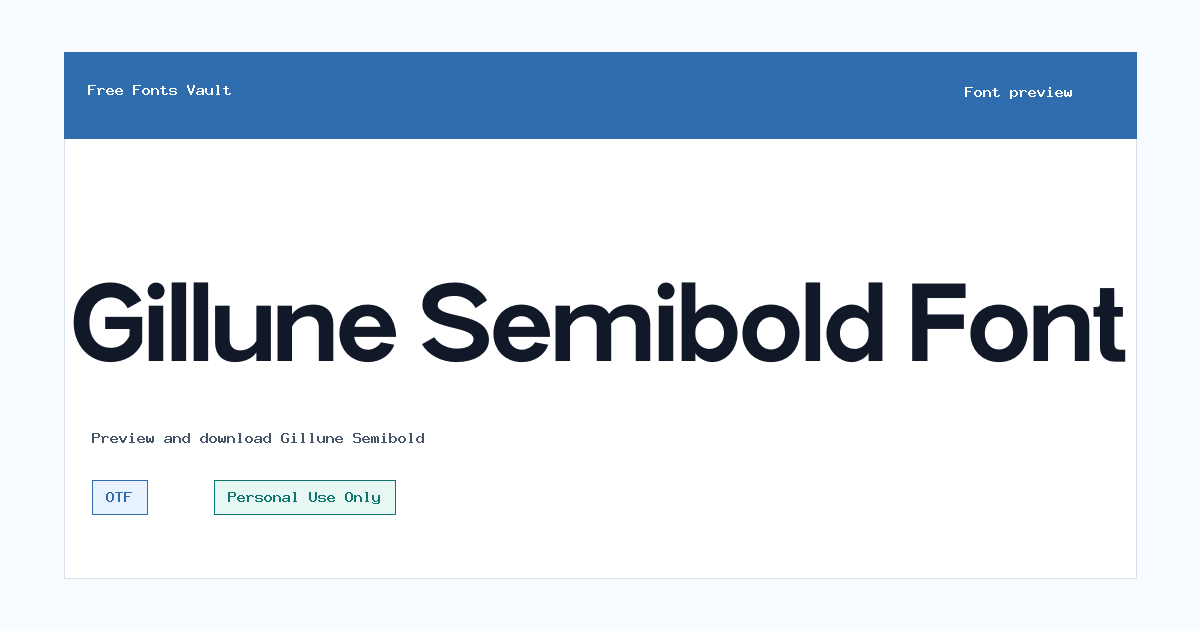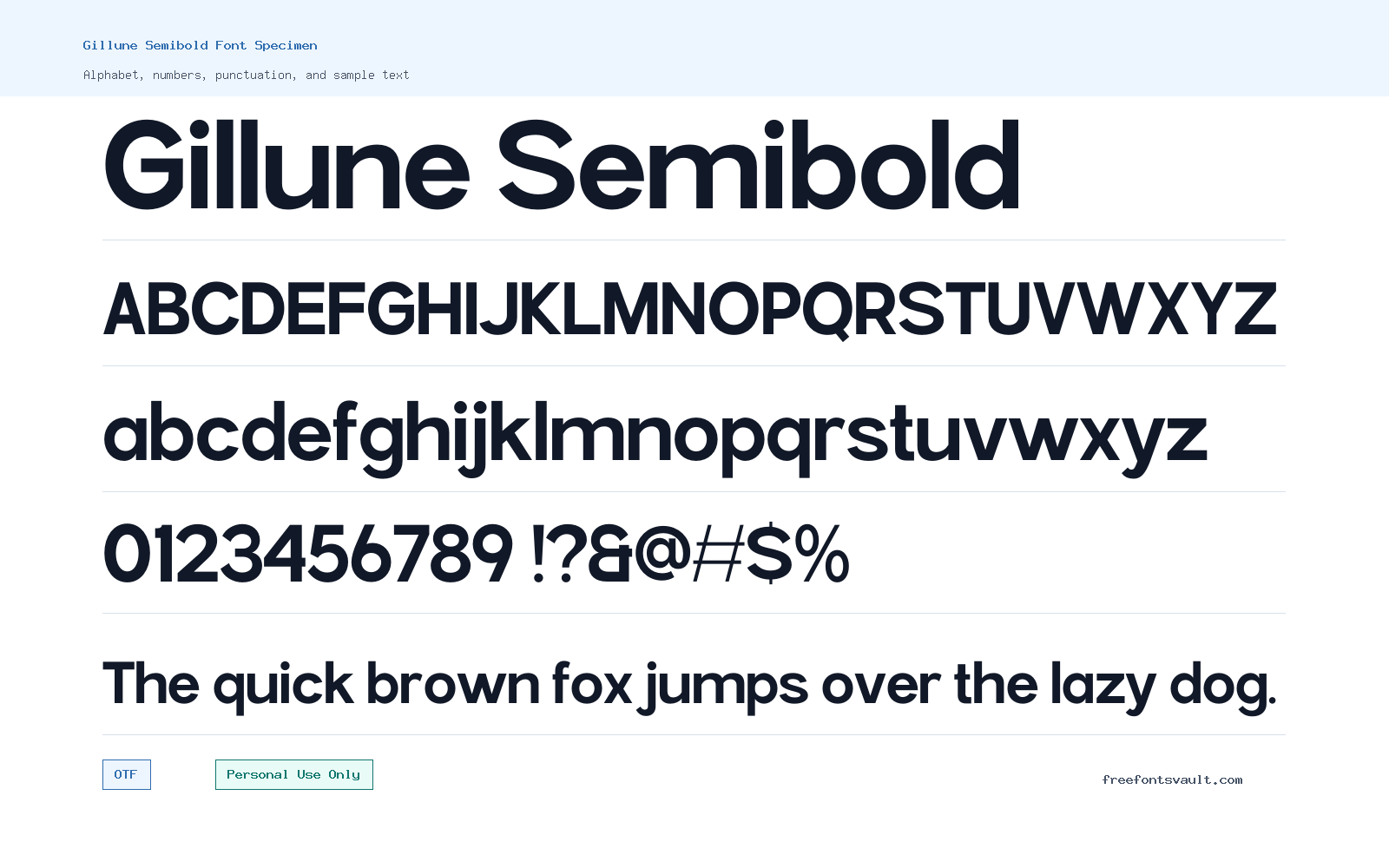
Gillune Semibold
- Designer Casloop Team
- Foundry Casloop Studio
Gillune Semibold is a strong sans serif font family style with both upright and italic OTF files, made for designs that need a confident headline weight without becoming too heavy.
Gillune Semibold has the practical feel of a display-ready sans serif: clean enough for modern layouts, but bold enough to stand out in short text. The 700 weight gives titles, labels, and callouts a firm visual presence, while the italic style adds a useful companion for emphasis, subtitles, pull quotes, or alternate logo directions. Because the family name is Gillune Semibold, visitors should treat this download as a heavier style rather than a full multi-weight type system. It is best tested in short phrases first, especially if the design depends on tight spacing, all-caps text, or small interface labels.
For designers, Gillune Semibold can work well in poster headings, social graphics, branding mockups, presentation covers, web hero text, and simple logo explorations. Try it in a few different preview sizes before choosing it for a final layout. At large sizes, check how the curves, counters, and letter spacing feel in your own wording. At smaller sizes, test real words rather than placeholder text, because semibold display styles can look different once letters repeat or sit close together. If you use the italic file, keep it purposeful: it can give motion or contrast, but using too much italic text can reduce readability in longer blocks.
- Semibold 700 weight for strong headings, titles, and short display text.
- Sans serif family style suited to clean modern layouts.
- Italic companion style for emphasis, alternate lockups, and visual contrast.
- Better suited to short text and display use than long reading passages.
- Logo concepts and wordmark mockups
- Website hero headings and landing-page mockups
- Social media banners and quote cards
- Presentation covers and bold section headers
- Packaging or label concepts for personal projects
- Short editorial headlines and feature graphics
Start by testing Gillune Semibold in the preview tool with the exact words you plan to use. For logo work, try uppercase, title case, and a short lowercase version to compare rhythm and spacing. In posters and web mockups, pair the semibold style with a quieter text face for paragraphs so the headline remains the focal point. Avoid setting long body copy in this weight, especially in italic, because heavier sans serif styles can become tiring in dense reading. If you need a full brand system, check whether matching lighter weights or additional styles are licensed from the original source before building a full identity around it.
Does Gillune Semibold include an italic style?
Yes. Gillune Semibold includes an upright OTF file and an italic OTF file.
What weight is Gillune Semibold?
The listed weight is 700, which is commonly treated as a bold or semibold display weight depending on the family naming.
What is Gillune Semibold best used for?
It is most useful for short, prominent text such as headlines, posters, social graphics, logo mockups, web hero sections, and presentation titles.
Is Gillune Semibold good for body text?
It is better for display text than long paragraphs. For body copy, pair it with a lighter, highly readable sans serif or serif font.